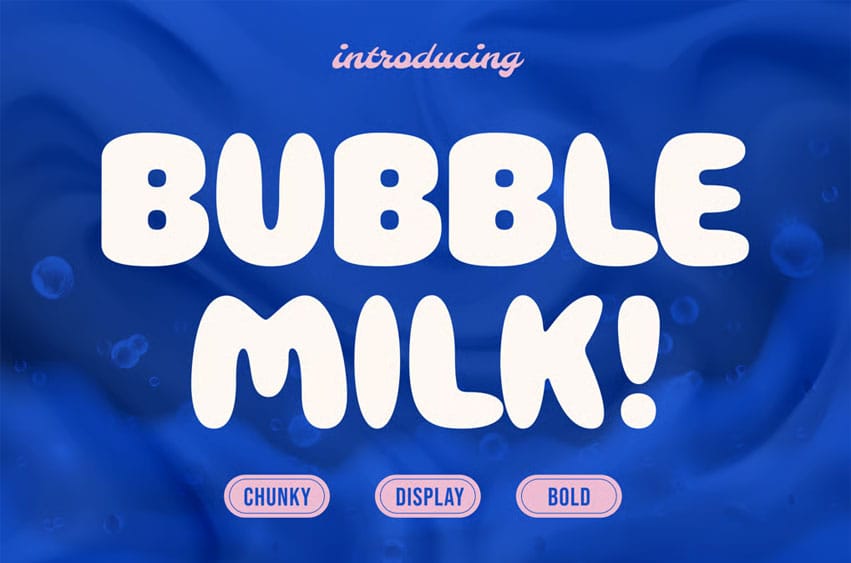
Bubble Milk Fontis suitable for flyers, posters, novels, letterheads, or any design requirements you want to be awesome.
It will certainly amaze your readers.